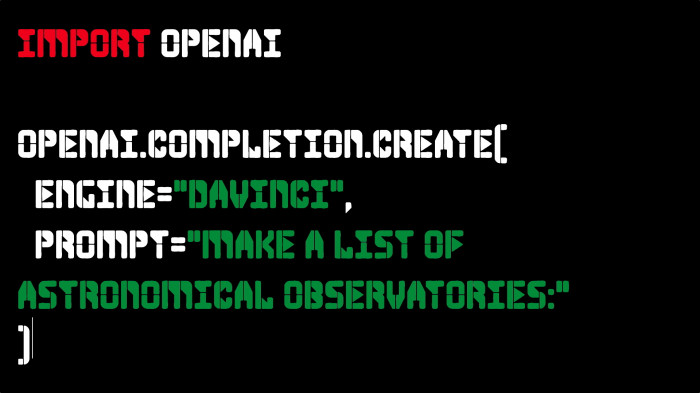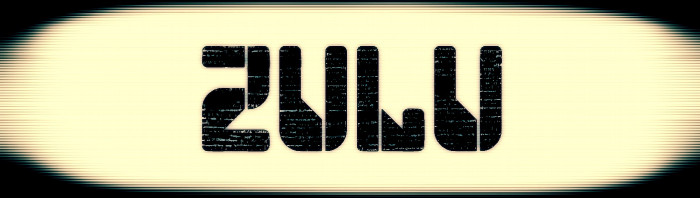
Inspired by some works by the master Philippe Apeloig (especially "Ndebele"; but under an optic much more soft and rounded, searching legibility and unity).